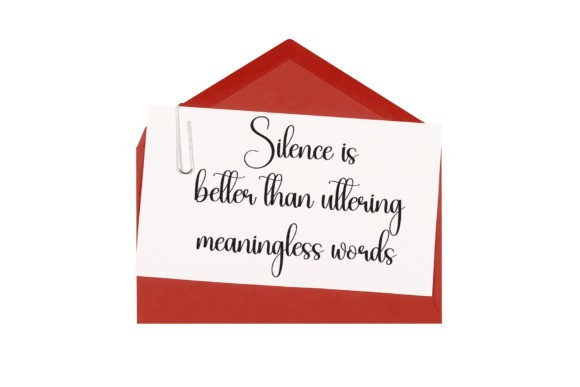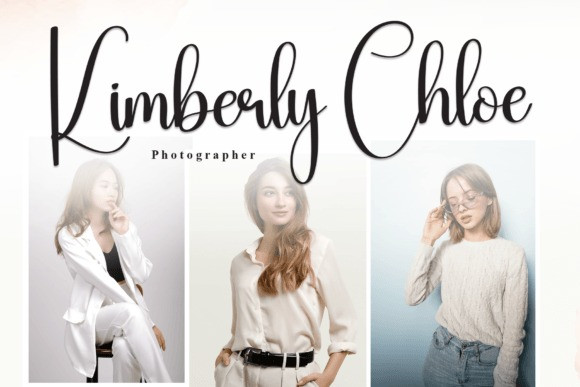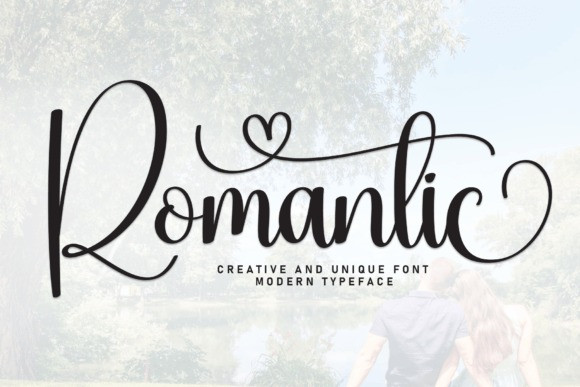
Romantic Handwriting Font
Romantic Handwriting Font is a sweet and cursive handwritten font. This gentle font will look gorgeous on a variety of design ideas. It will add a joyful and romantic touch to each of your projects!